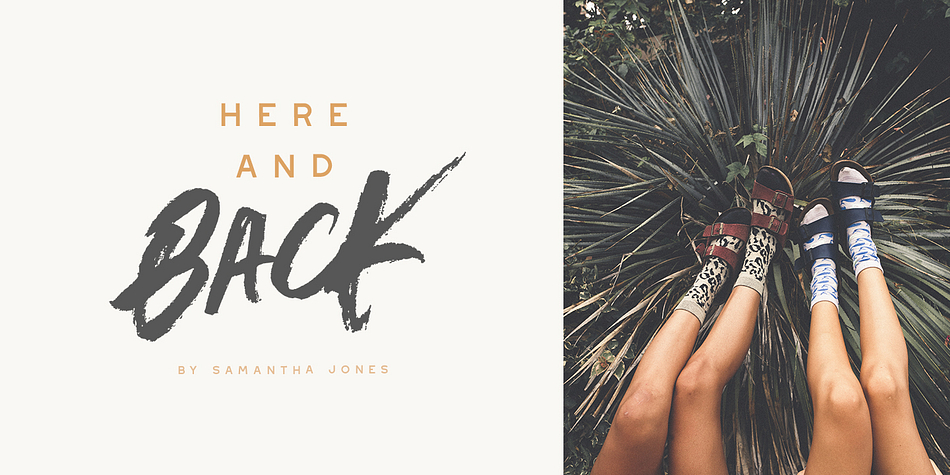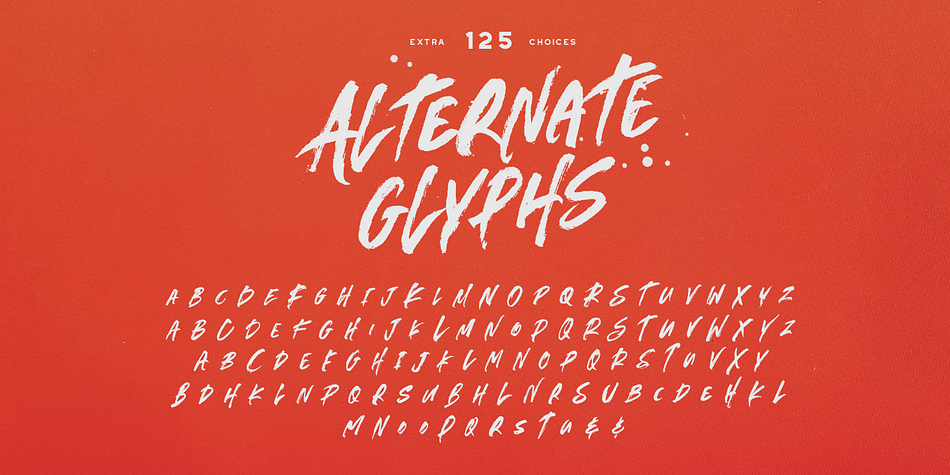
Outback Brush Font
Designed by Greg Nicholls, Outback Brush Font is a brush display, grunge and dingbat font family. This typeface has three styles and was published by Rook Design Supply.
With Outback you’re not just getting a typical a-z font. You’re getting a font that has over 100 alternate glyphs, so that you can use the font to write phrases a ton of different ways. So, if you’re looking for the perfect ‘R’, you have 6 additional options to choose from in addition to what’s programmed for the default uppercase and lowercase characters. Choose more sharp characters if you’re going for something more aggressive, or more rounded characters if you want something with more of a laid back flow.